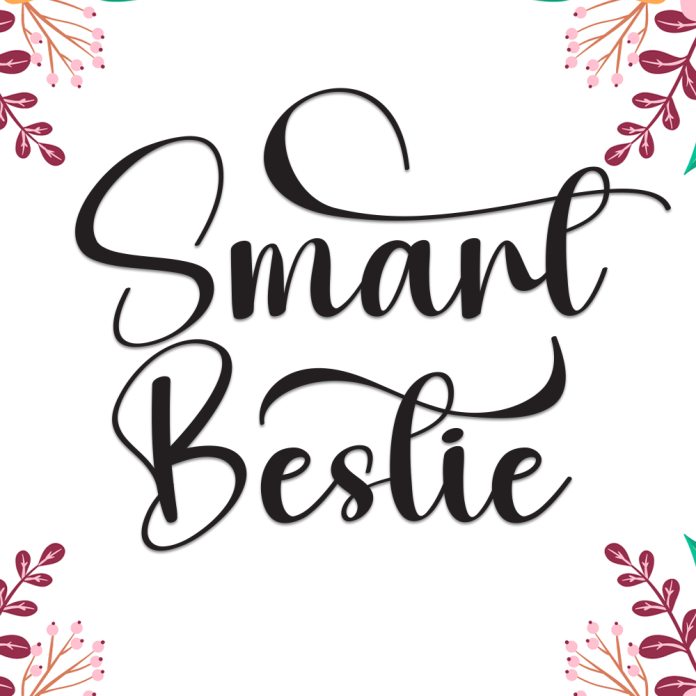
Smart Bestie is a fun and friendly handwriting font that captures the charm of casual notes and heartfelt messages. With its smooth curves and natural strokes, this font feels like it's been written by your best friend—personal, warm, and full of personality.
Perfect for greeting cards, planners, social media posts, children's designs, or anything that needs a handwritten touch that’s both approachable and stylish.
Handwriting Font Style
Playful and Casual Look
Uppercase & Lowercase
Numbers & Punctuation
Multilingual Support
Add a cheerful and genuine vibe to your creative projects with Smart Bestie!